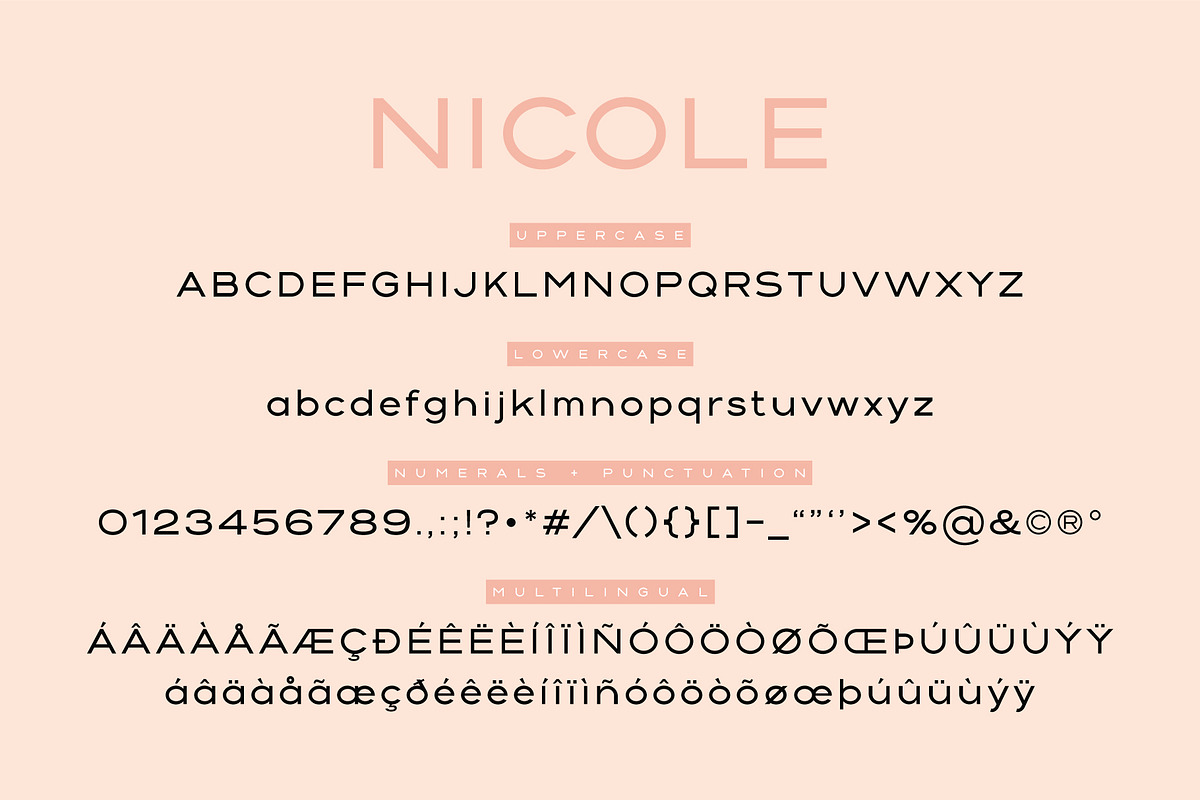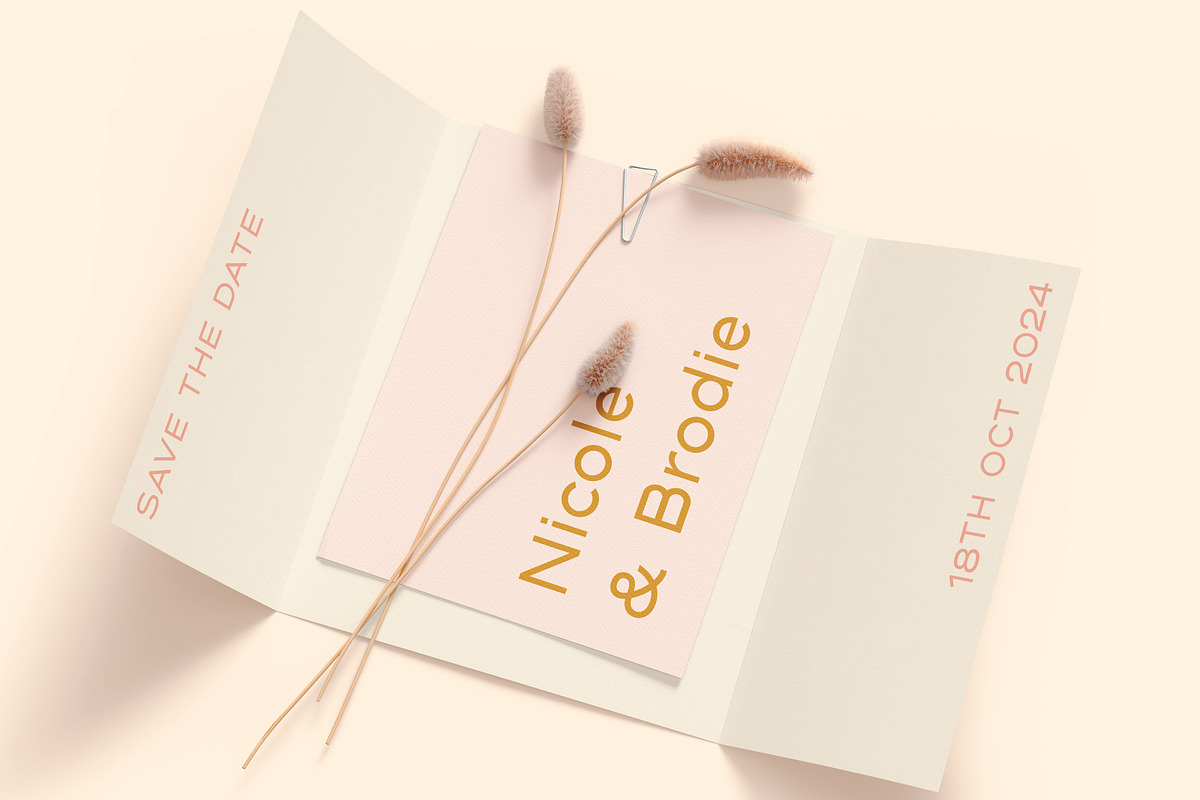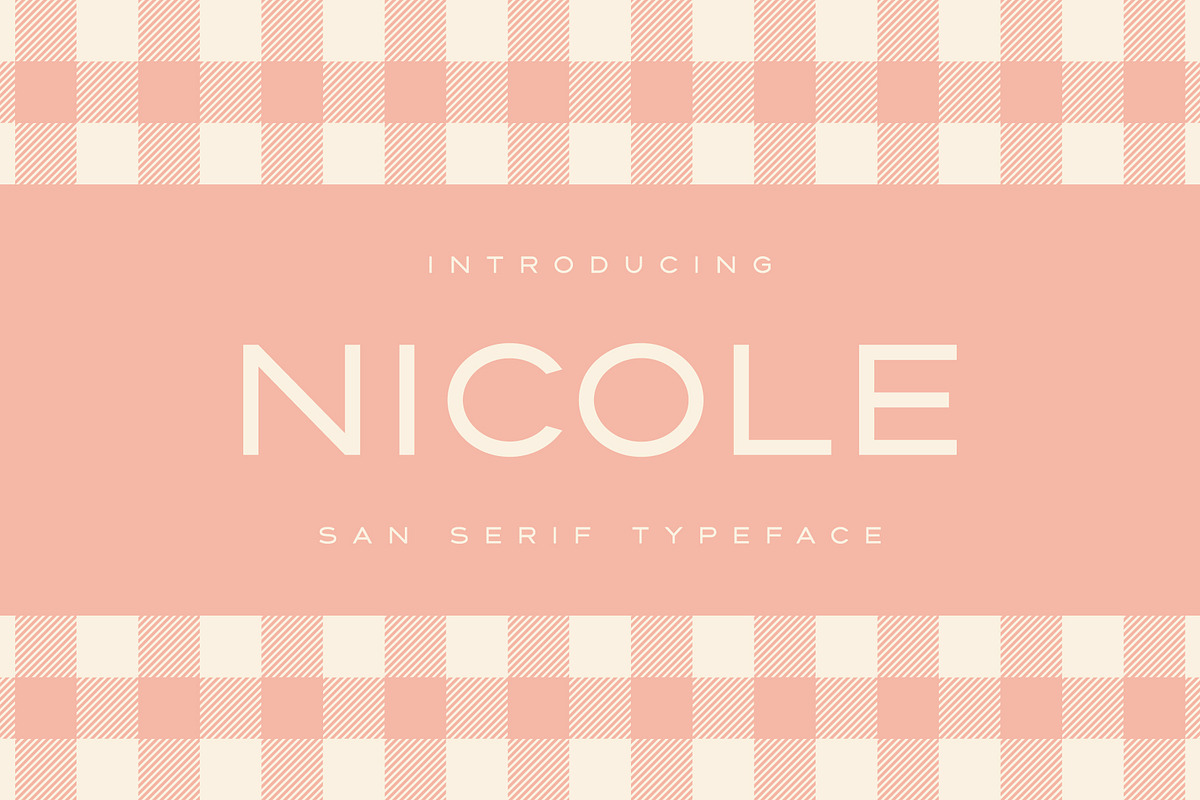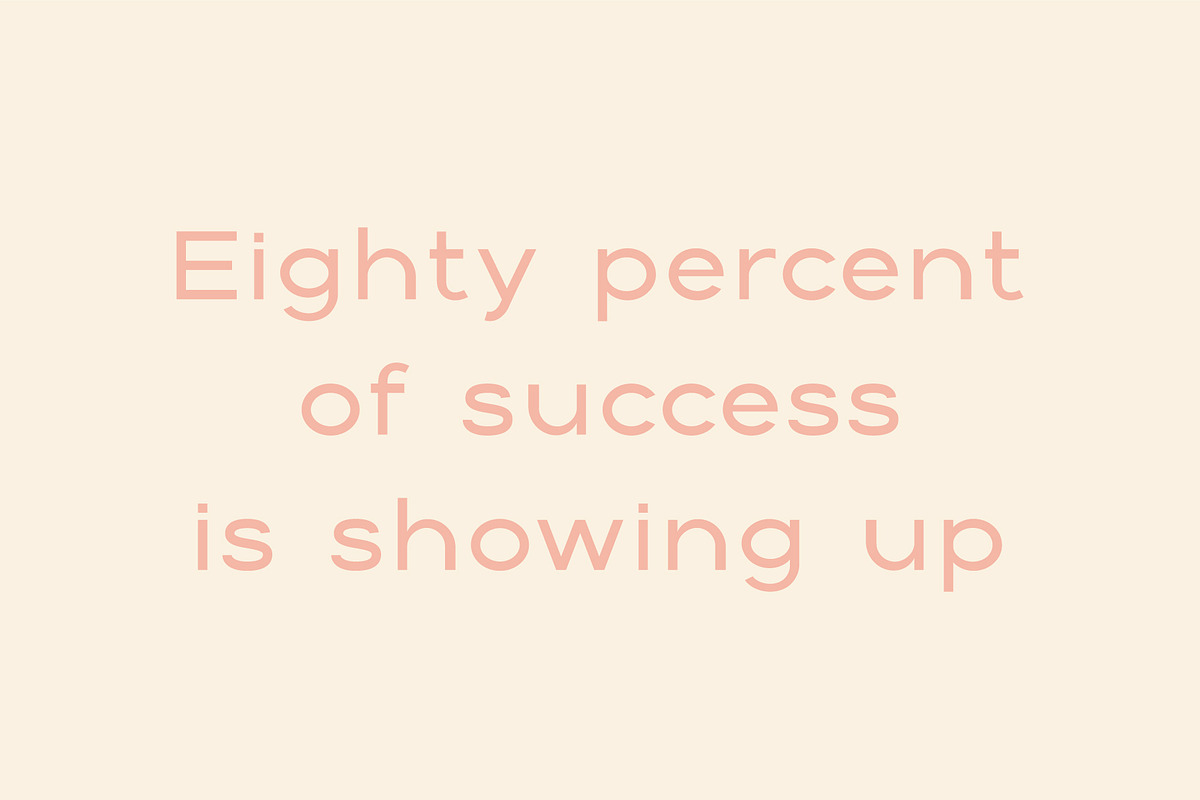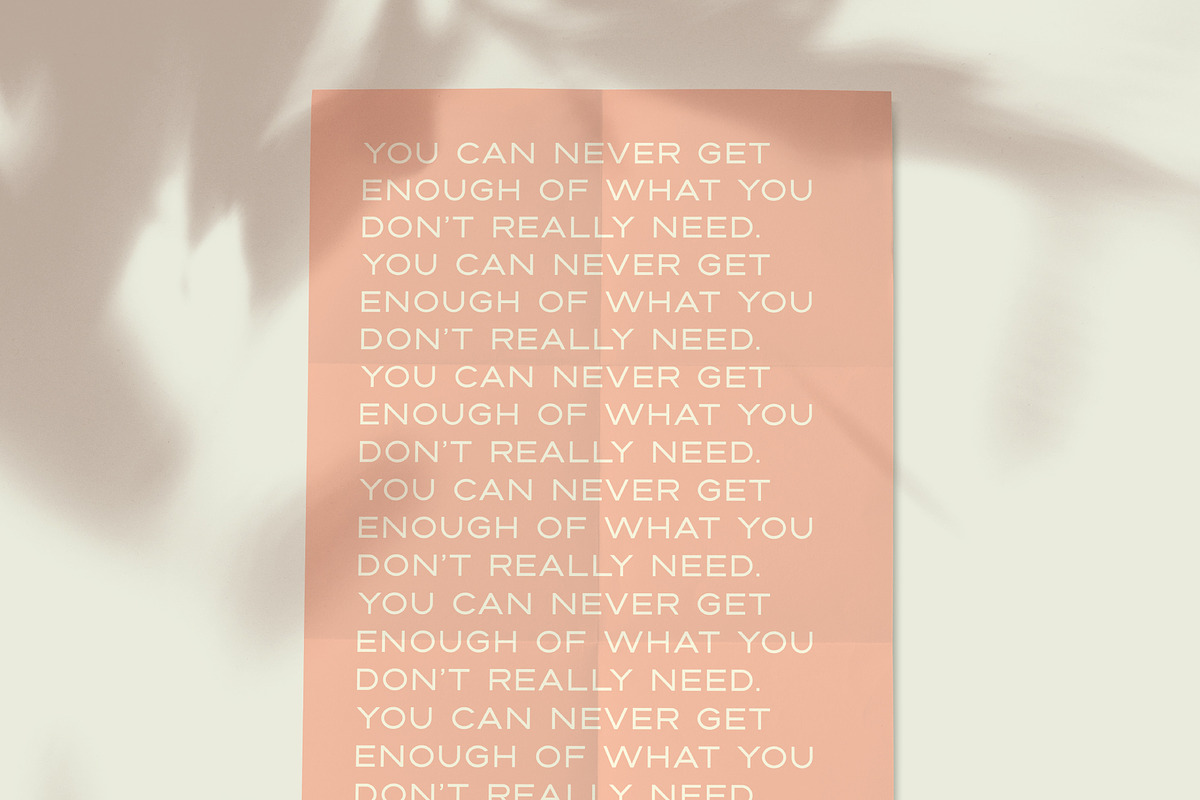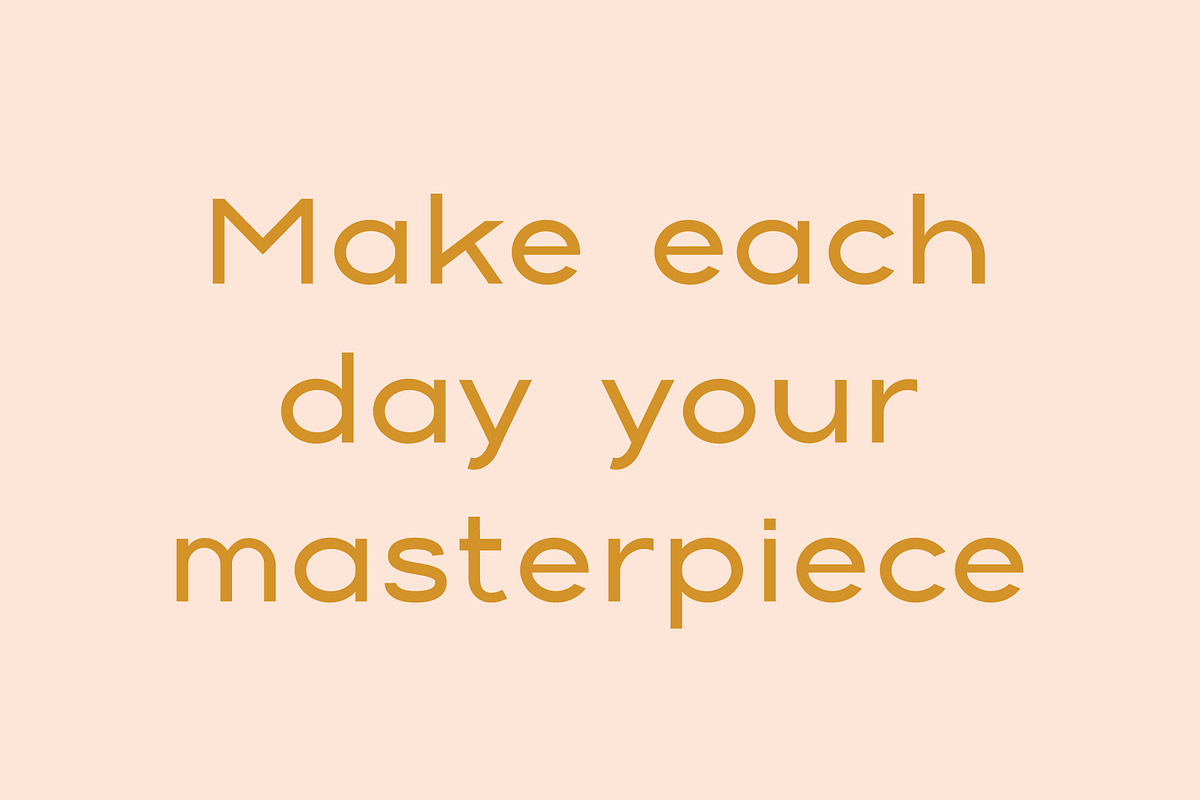
Nicole | Modern Wide San Serif Font
Introducing Nicole! Your new go-to modern wide san serif font that works perfectly as subtext or body copy.
Nicole contains multilingual support with accented characters for international (Western European, Central European and South Eastern European) users.